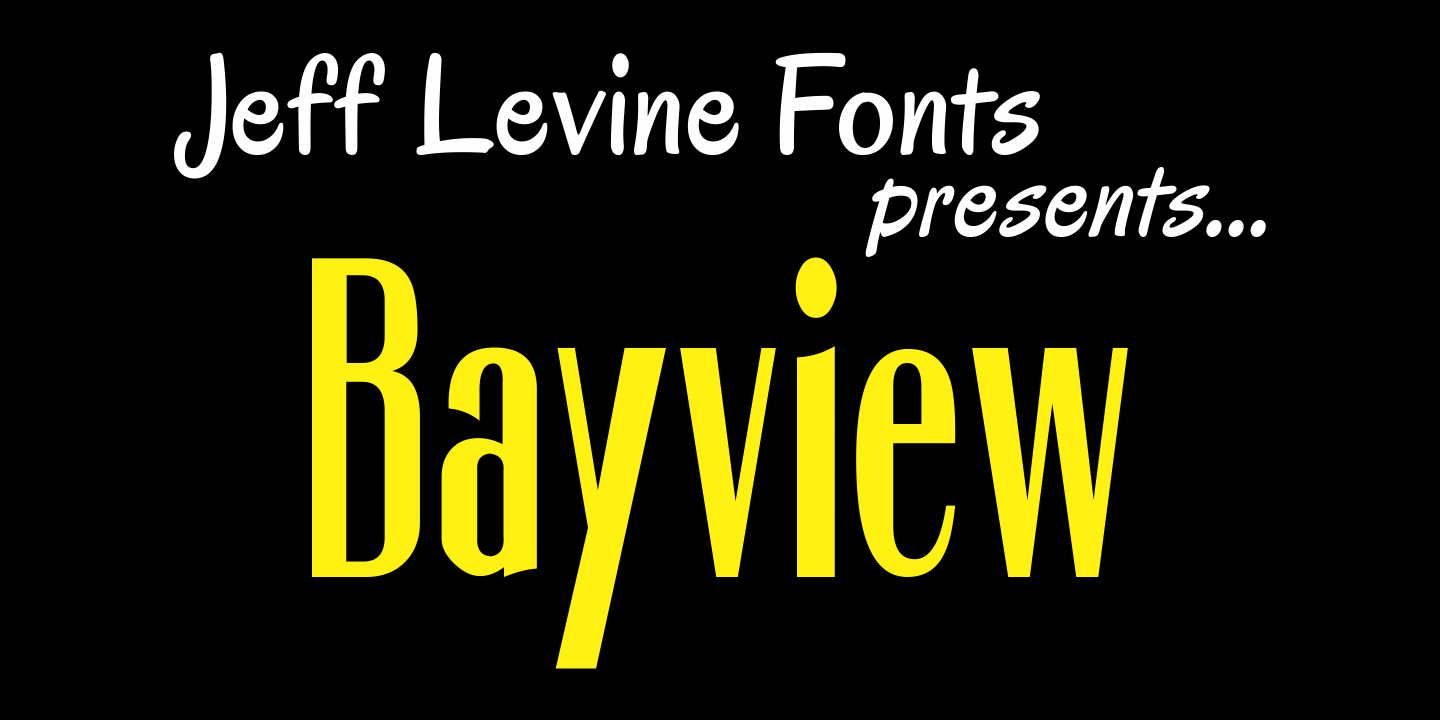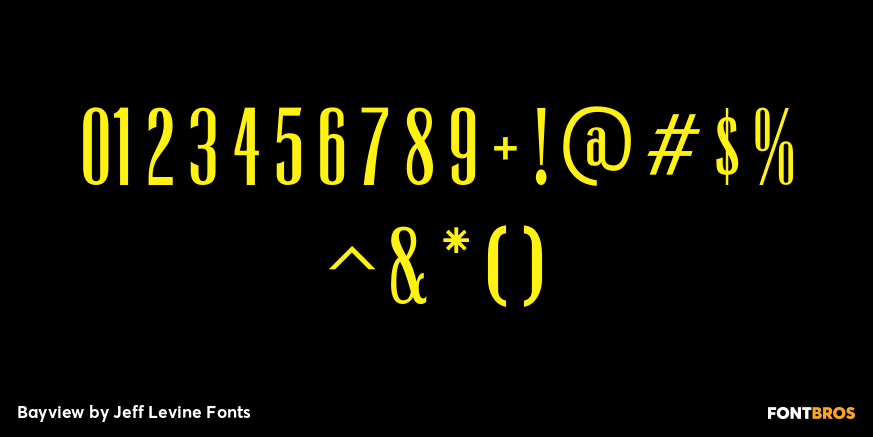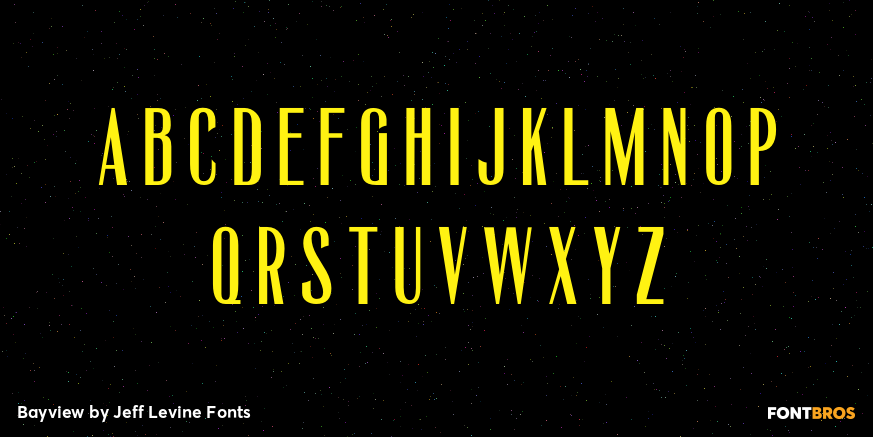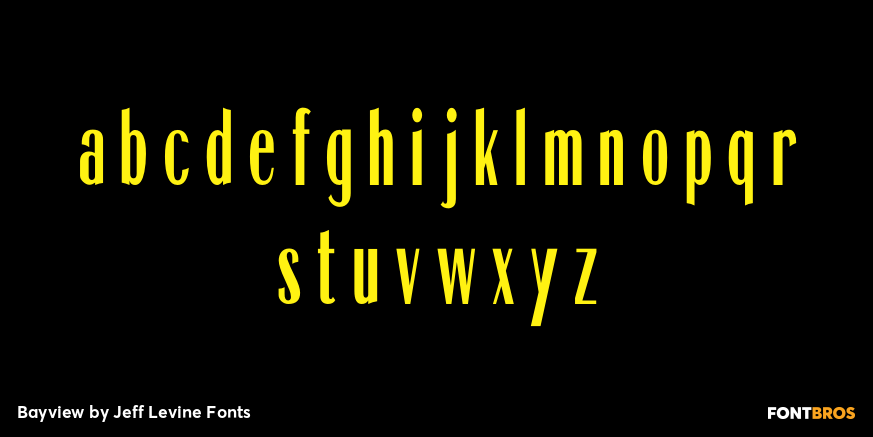
Bayview
Around the turn of the 20th Century, the Inland Type Foundry produced a display face named Studley. It was a variation on a design by another foundry called Florentine.
A condensed face with a bold, clean look, the design resembled the warmth and feel of a classic wood type. Best applied to headlines and titles, the font reads amazingly well at even 18 point renderings. Jeff Levine had added his own personal touch to his digital version of this old favorite and renamed it Bayview JNL.